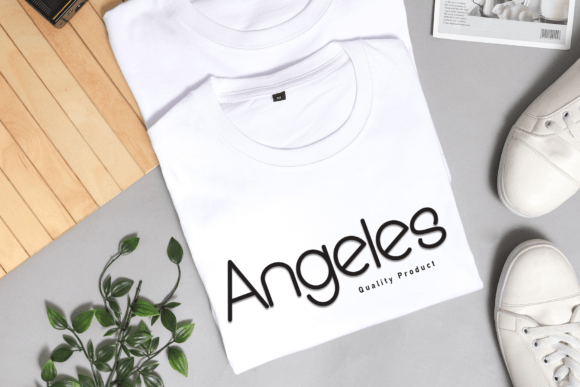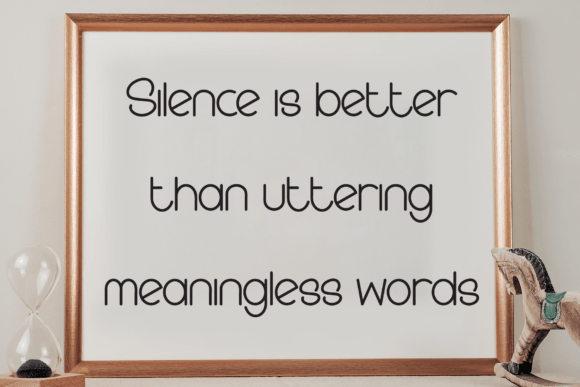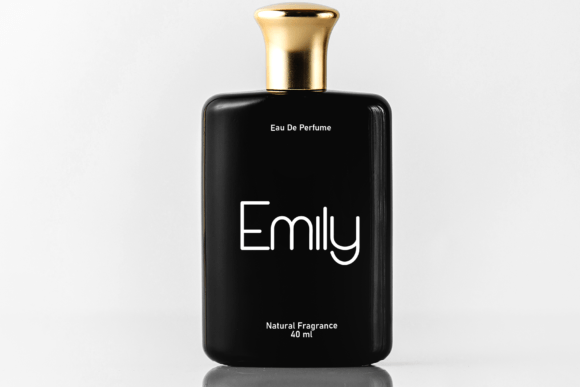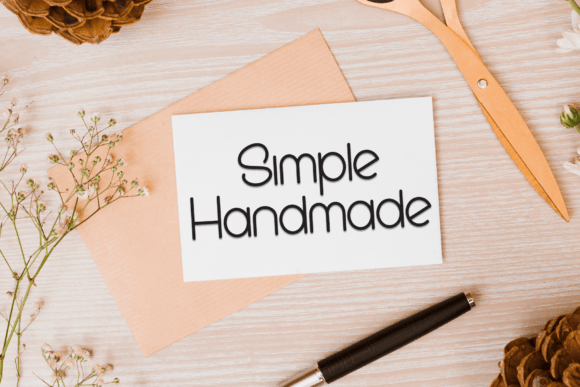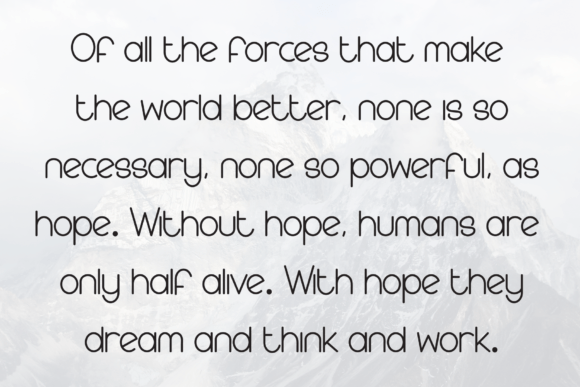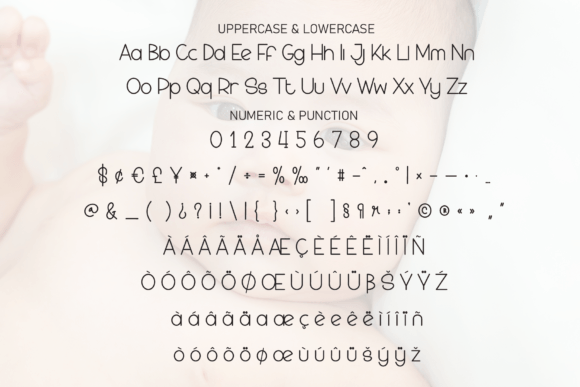
Baby Chubby Font: The Ultimate Typographical Treat for Designers and Crafters
Are you tired of using the same old fonts in your designs? Do you want to add a touch of whimsy and playfulness to your wedding invitations, cards, and other creative projects? Look no further than the Baby Chubby Font, a hand-crafted display font that combines sweetness and friendliness in a unique and irresistible way.
The Story Behind Baby Chubby Font
Baby Chubby Font is more than just a typographical treat – it’s a carefully crafted design element that’s infused with a dash of cuteness and a sprinkle of fun. The font’s creator has meticulously designed each letter to bring a sense of joy and playfulness to your designs, making it perfect for projects that require a lighthearted and whimsical touch.
What Makes Baby Chubby Font So Special?
So, what sets Baby Chubby Font apart from other fonts on the market? Here are just a few features that make it a standout:
- Hand-crafted with love: Each letter in the Baby Chubby Font has been carefully crafted by hand to ensure a unique and personal touch.
- Perfect for playful designs: Whether you’re creating wedding invitations, cards, or other design pieces, Baby Chubby Font is the perfect choice for adding a touch of whimsy and fun.
- Easy to read: Despite its playful nature, Baby Chubby Font is still easy to read, making it perfect for use in a variety of design applications.
- Versatile: Baby Chubby Font can be used in a wide range of design projects, from digital files to print materials.
How to Use Baby Chubby Font in Your Designs
Using Baby Chubby Font in your designs is easy! Here are a few tips to get you started:
- Pair it with other fonts: Baby Chubby Font pairs well with a variety of other fonts, so don’t be afraid to experiment with different combinations.
- Use it for headings: Baby Chubby Font is perfect for use in headings and titles, where its playful nature can really shine.
- Add some color: Baby Chubby Font looks great in a variety of colors, so don’t be afraid to experiment with different hues and combinations.
Why Designers and Crafters Love Baby Chubby Font
So, why do designers and crafters love Baby Chubby Font? Here are just a few reasons:
- It’s unique: Baby Chubby Font is a one-of-a-kind design element that can help your designs stand out from the crowd.
- It’s versatile: Baby Chubby Font can be used in a wide range of design applications, from digital files to print materials.